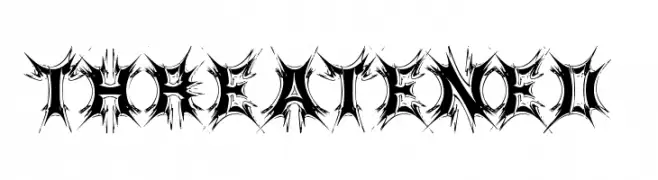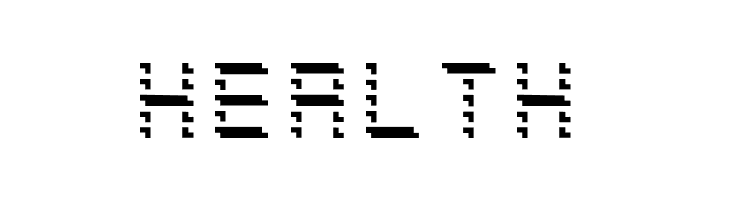
A bold, vintage-style font with high contrast and strong presence.
An educational font with dotted lines and arrows for teaching handwriting.
A dotted line font mimicking handwriting practice sheets, ideal for educational use.
A playful font with arrows integrated into each character, offering a modern and dynamic style.
A dotted cursive font designed for handwriting practice and education.
Decorative script with animal motifs and ornate curves.
Rounded, monolinear Burmese script with missing glyphs.
A bold, collegiate-style font with a strong, three-dimensional effect.
A bold, vintage font with intricate, decorative flourishes.
A bold, decorative font with angular edges and intricate detailing.
A modern, geometric font with elongated, narrow letterforms and consistent stroke width.
A classic serif font with bold, elegant characters and moderate contrast.
A bold, classic serif font with moderate contrast and refined serifs.
A classic serif typeface with elegant strokes and moderate contrast, ideal for formal uses.
An elegant, italic serif font with a condensed width and moderate contrast.
An elegant, flowing script font with intricate, interconnected letterforms.
A decorative and gothic-inspired font with intricate and ornate designs.
A decorative font styled after vintage license plates, featuring bold, eclectic characters.
An edgy, graffiti-inspired font with sharp angles and dynamic strokes.
A detailed hand-illustrated font representing the German finger alphabet.
A whimsical, bold serif font with playful, decorative elements.
A pixelated, retro-style font with a blocky, digital appearance.
A pixelated, monospaced font with a retro digital style.
A pixelated, monospaced font with a retro, digital aesthetic.
A pixelated, monospaced font with a retro digital style.
A pixelated, monospaced font with a retro digital aesthetic.